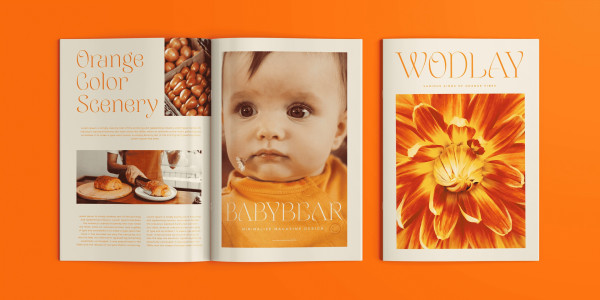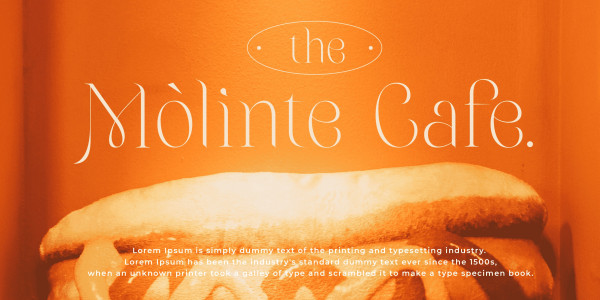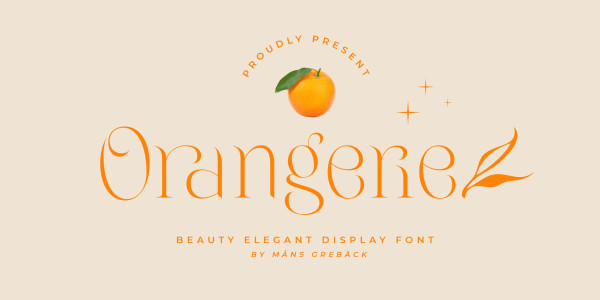
Orangerie Font
Orangerie Font is a soft, delicate, and beautiful typeface that captures the essence of fashion, sweetness, and nature. Its flowing, thin lines evoke a sense of calm and loveliness, making it the perfect choice for romantic art, professional stationary, and light-hearted projects alike.
Use character ¤ to make decorative nature element such as leaves.
Use multiple for different versions.
Example: Sweet¤¤¤¤Morning